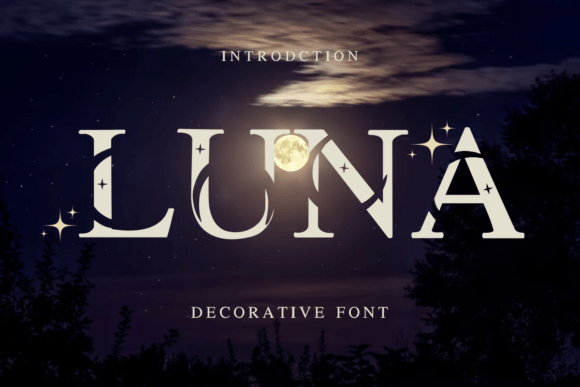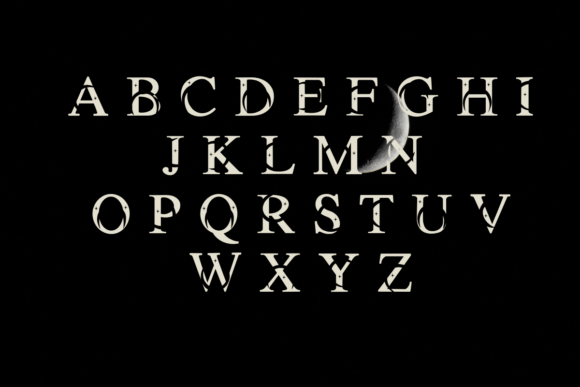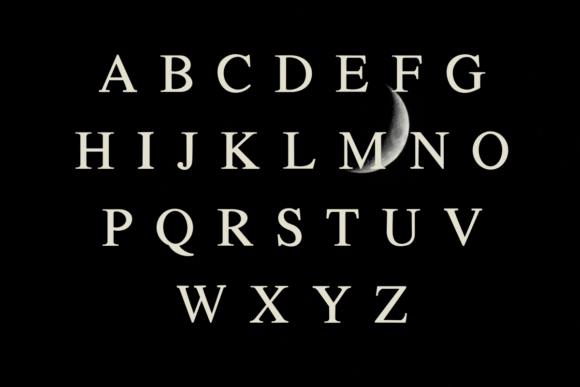
Luna Font
🌙 LUNA — Elegant Decorative Font
LUNA is a dreamy, celestial-inspired decorative font that draws its magic from the night sky.
Elegant and graceful, this serif display typeface is adorned with star accents and moonlit curves that make each character shimmer with mystery. Its sophisticated structure is softened by whimsical celestial cutouts, creating a font that feels both powerful and poetic.
Perfect for astrology-themed branding, tarot packaging, moon phase planners, or any project that calls for elegance with an ethereal twist, LUNA is the ideal blend of classic serif strength and celestial wonder.
Its balance between high-end fashion vibes and magical mystique also makes it a fantastic choice for logo design, book covers, or event invitations that require a touch of starlit drama.